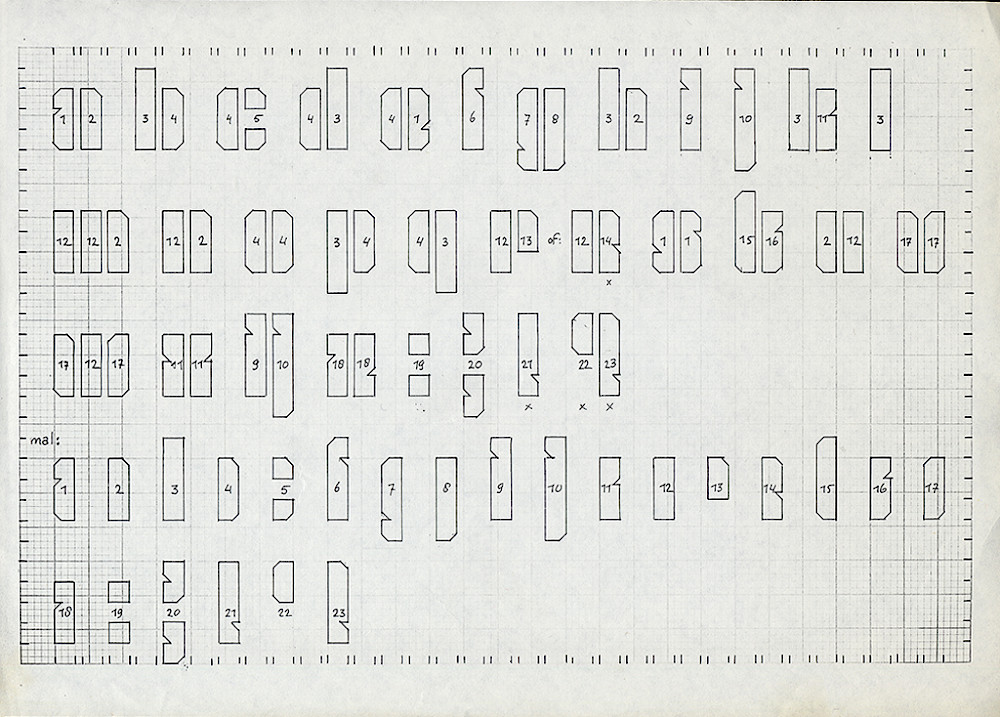
A computer designer before the computer, Jurriaan Schrofer (1926 - 1990) is regarded one of the most defining yet least known figures in European graphic design in the 1950s-70s, author of a realm full geometric multi-dimensional letterforms which were created done painstakingly by hand. “In fact, it is not about ‘yes’ and ‘no’, nor faith or conscience, nor truth or lies, but the experience of the unity of opposites”, Schrofer wrote in 1988.